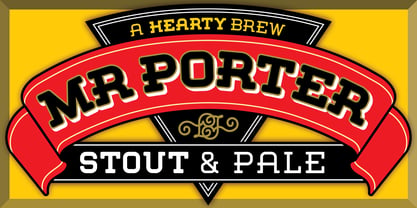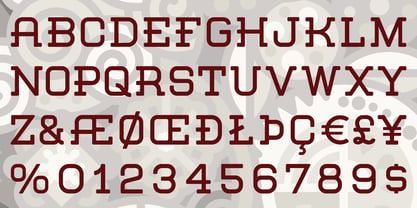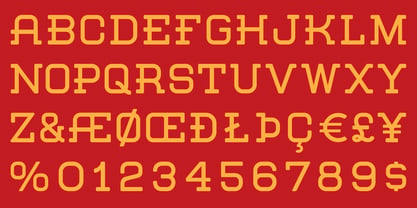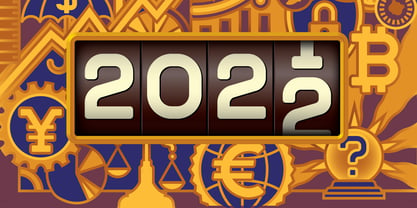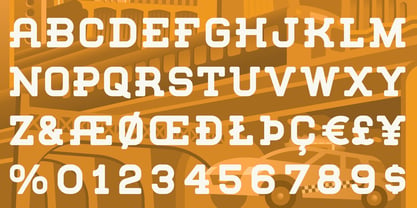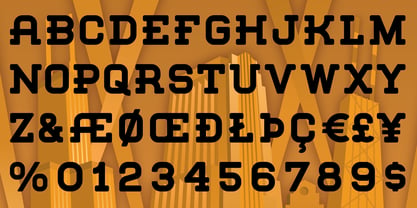
Mr Porter
A robust, mono-weight typeface with gently rounded slab serifs, Mr. Porter harkens back to celebrated roots in late 17th Century England. Not for the meek or faint-of-heart, it lends a nutty, chocolaty, toffee flavor to both a stout and pale variety, with lots of malty goodness. Rich and full-flavored with notes of coffee, licorice and molasses, it promises delightful pairings for an infinite variety of typographic solutions.